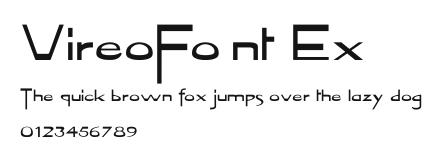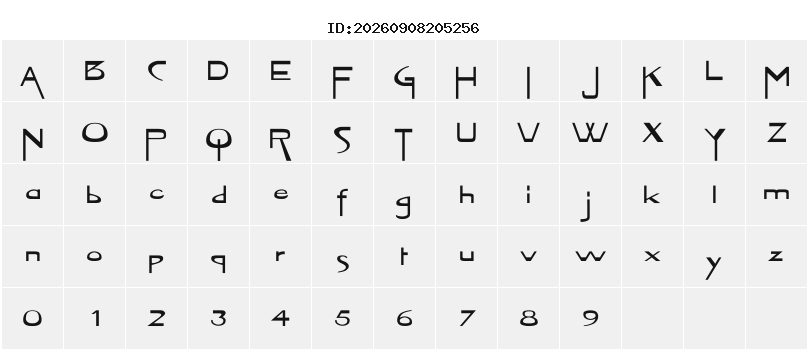
• Font Name: VireoFont Ex
• Full Font Name: VireoFont Ex
About VireoFont Ex.ttf
VireoFont Ex.ttf is a modern, elegant sans-serif font designed for ultimate readability and visual harmony. Perfect for branding, headlines, web design, and print materials.